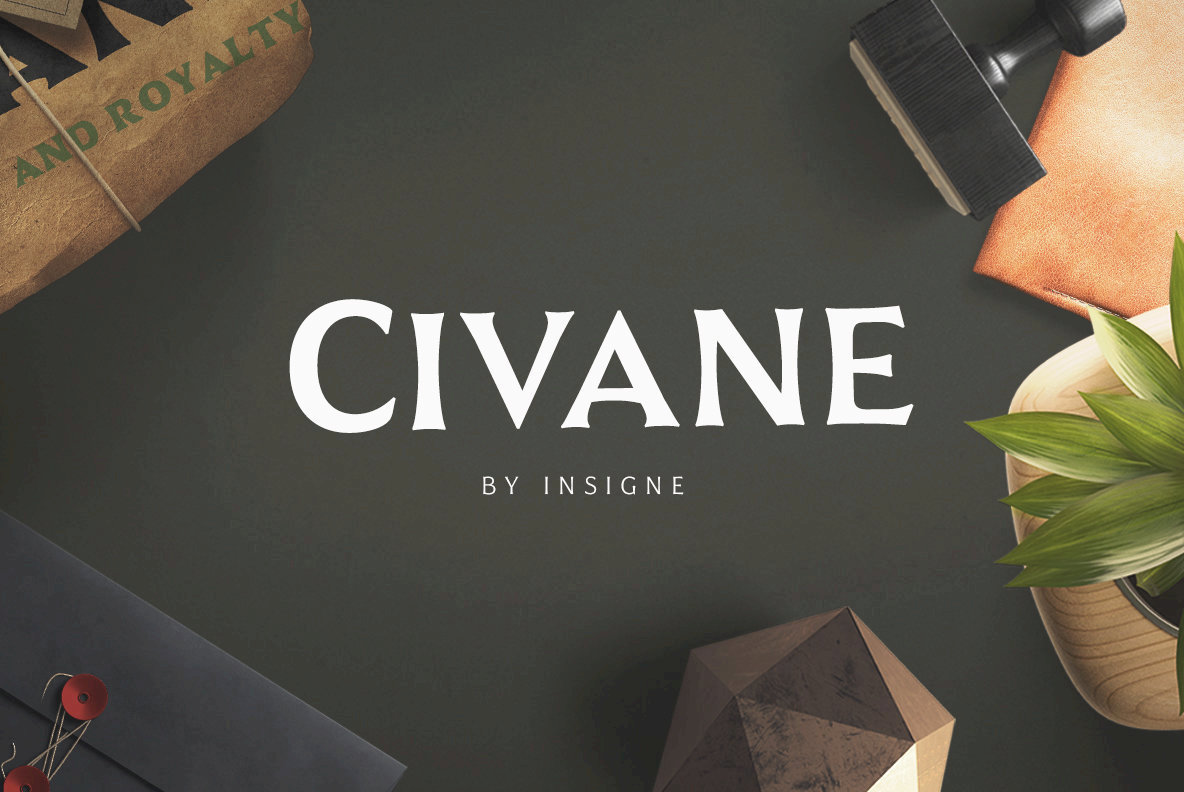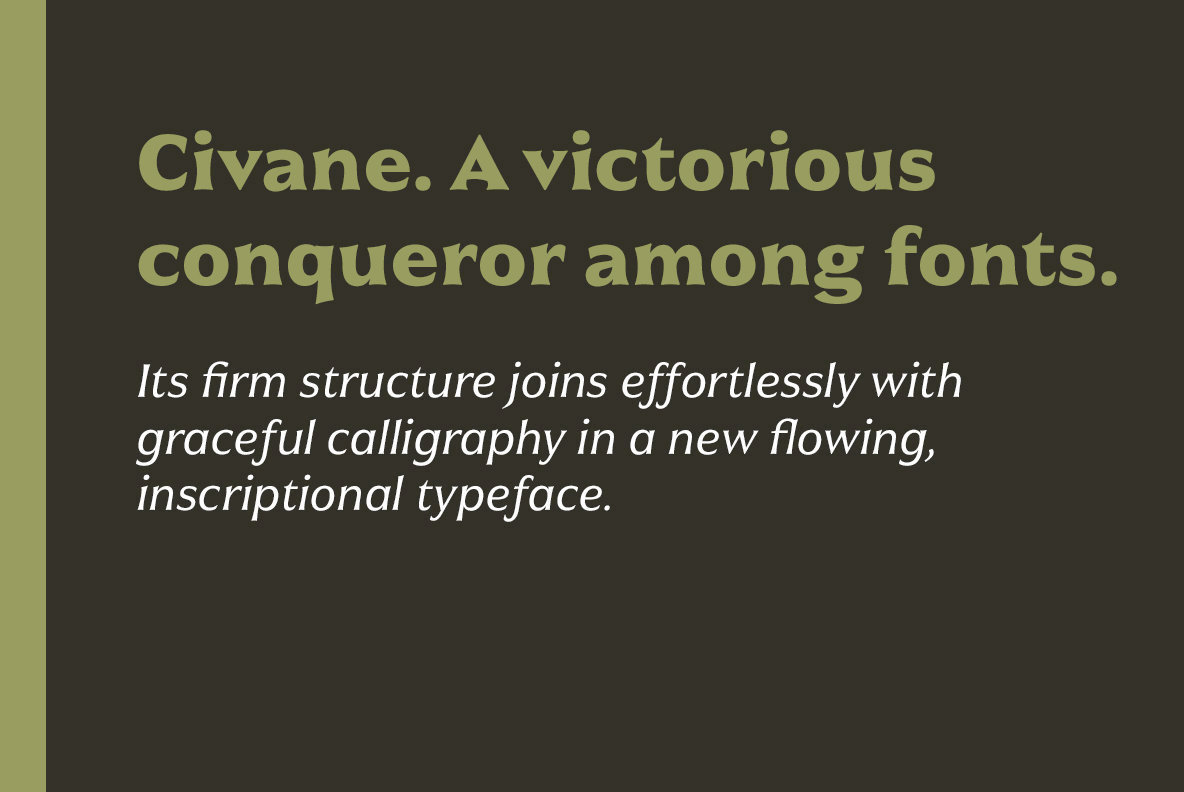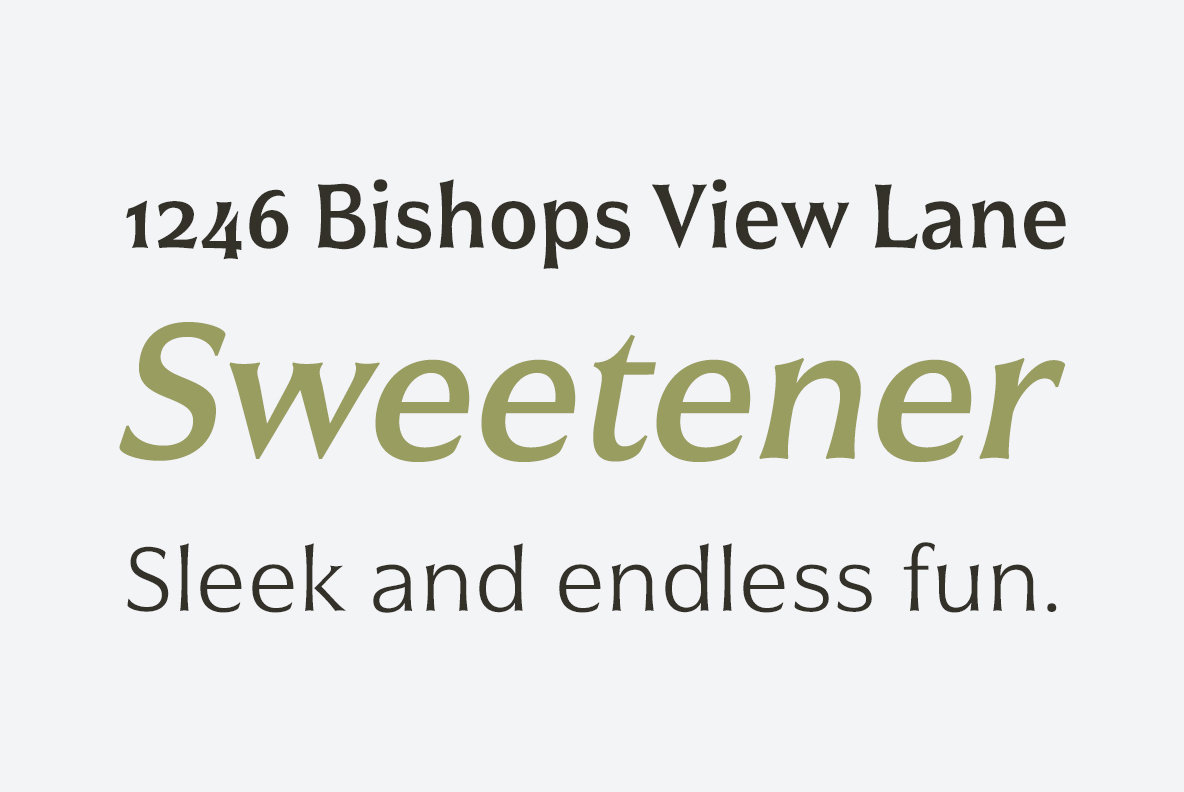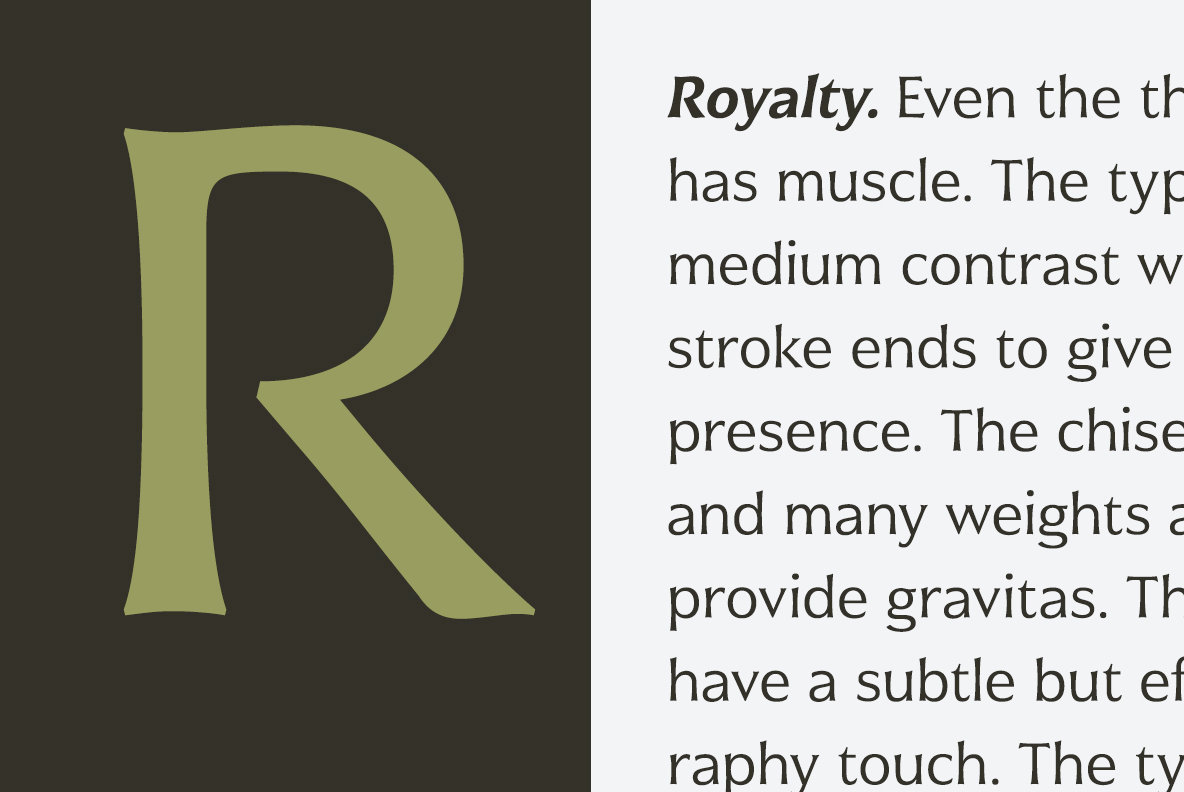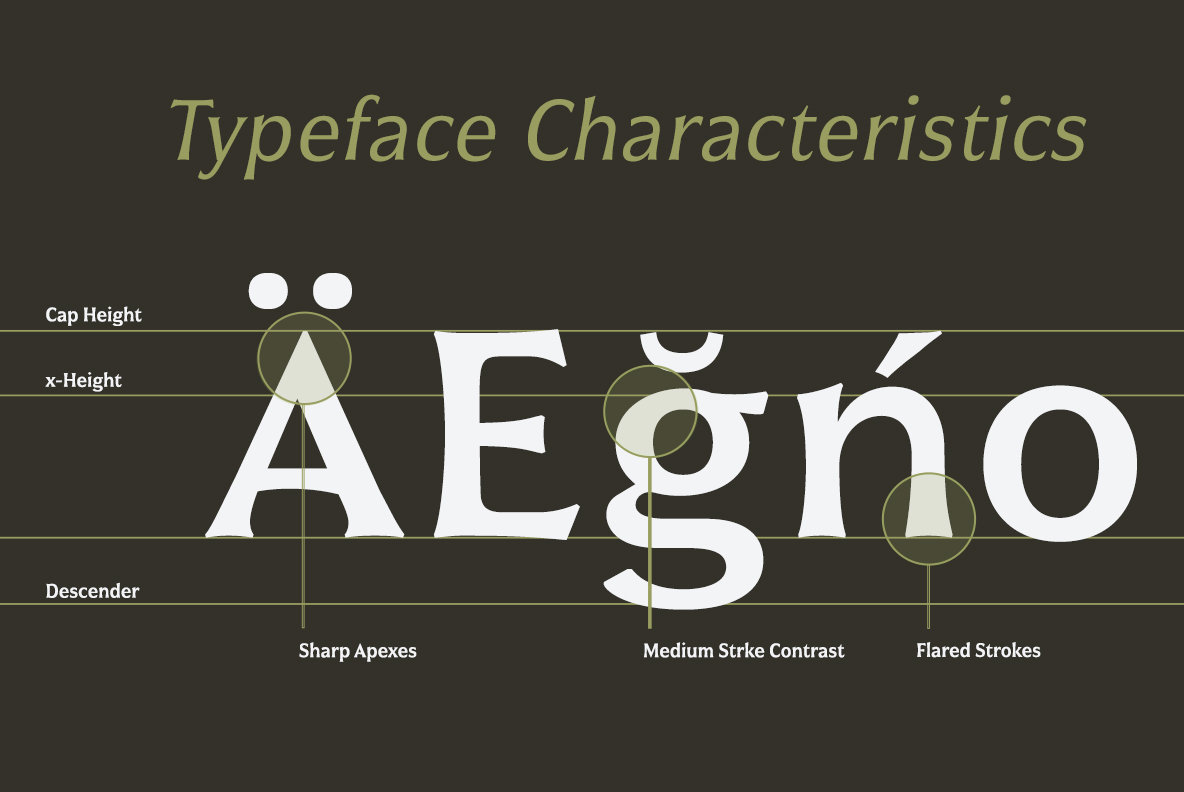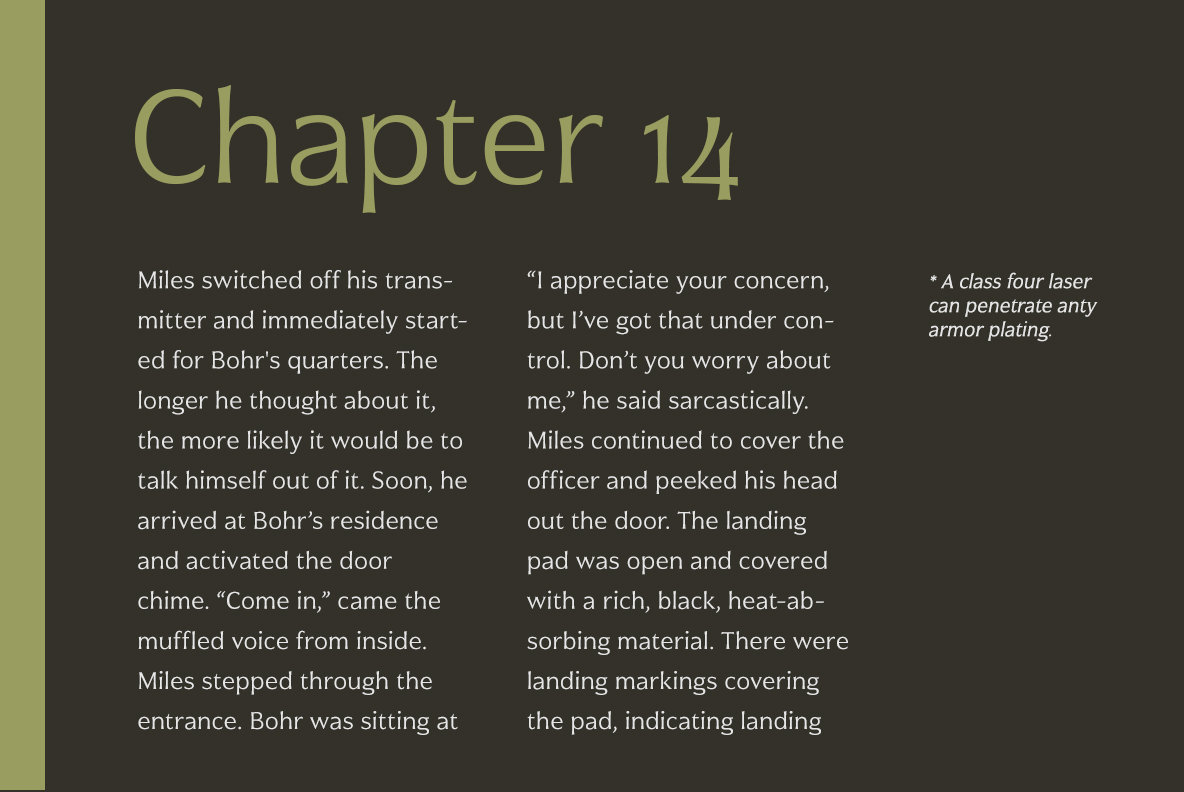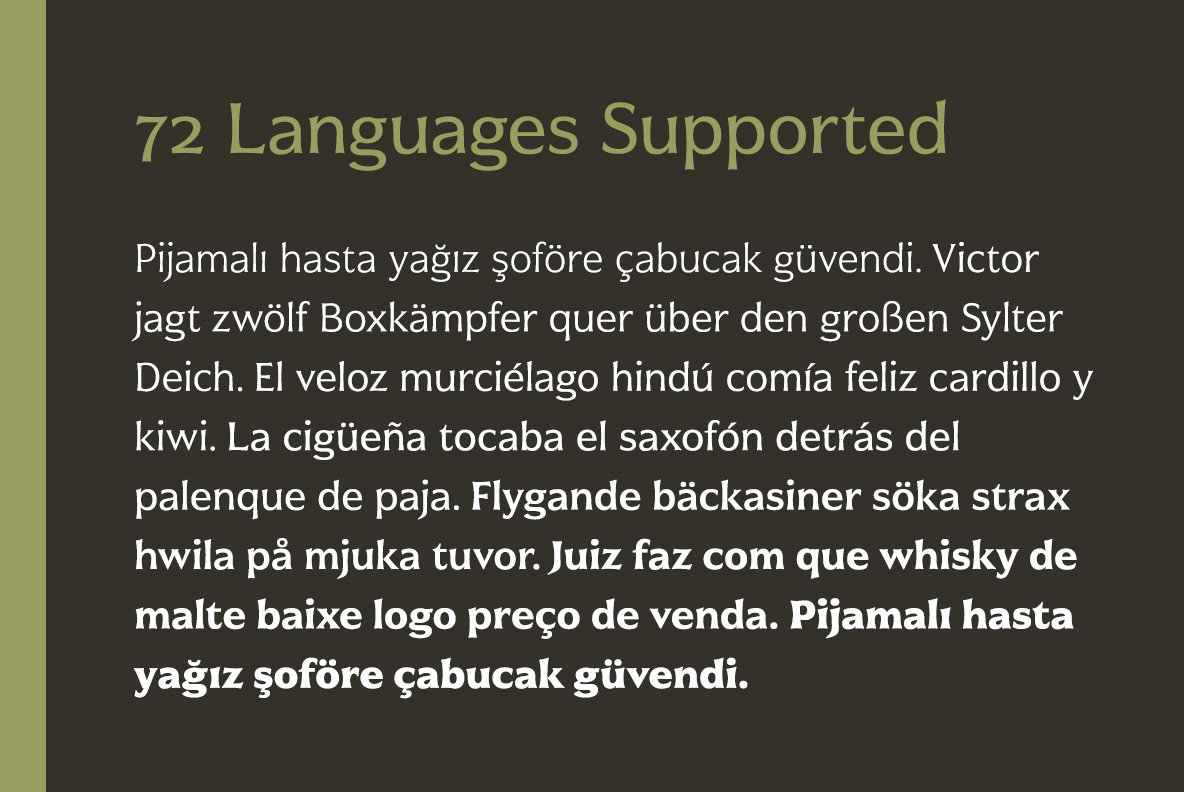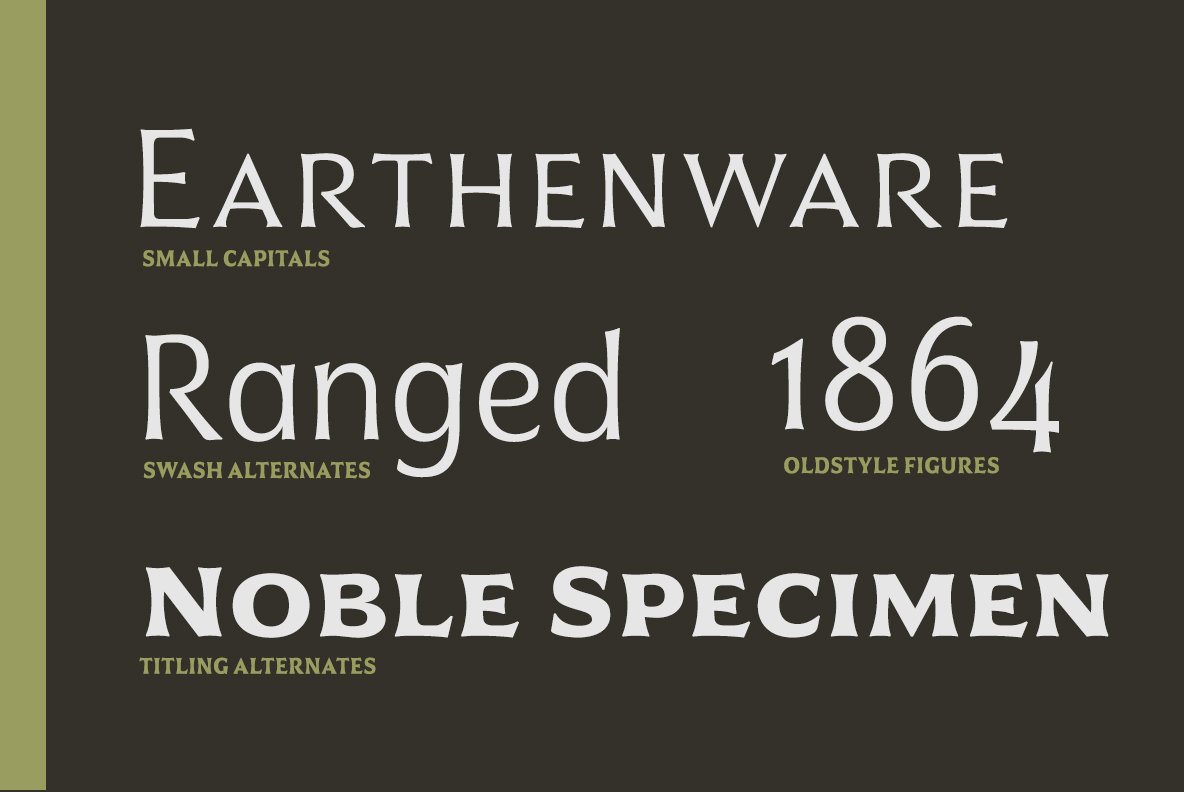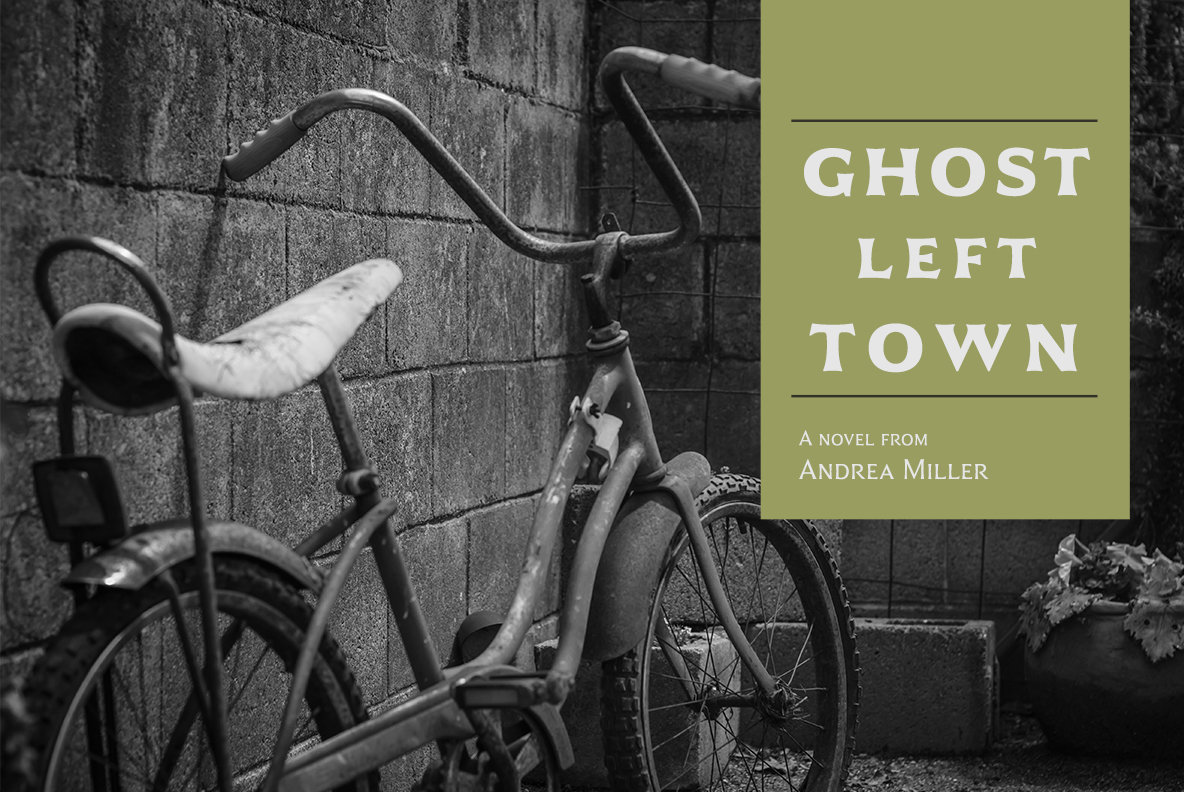
Civane Font
Civane is built for advertising and display typesetting as well as title and small text, making it an excellent choice for websites as well as flyers and packaging. Use it for defining your brand or for creating designs that evoke academia, militaria, monuments, automobiles, signs, and so on. Its 48 well-designed fonts are well-equipped to help you leave your mark on history.